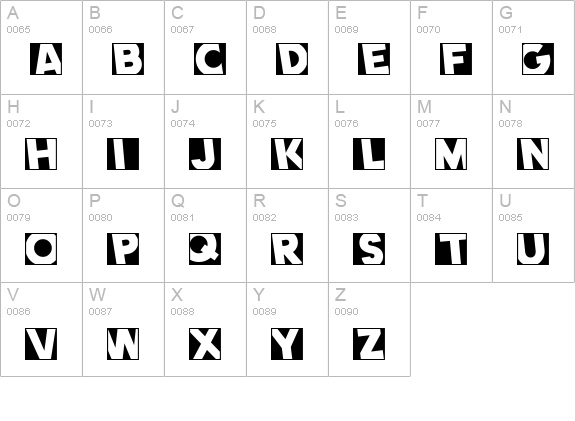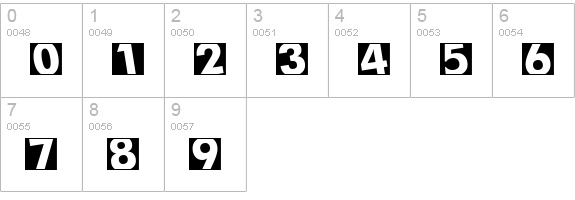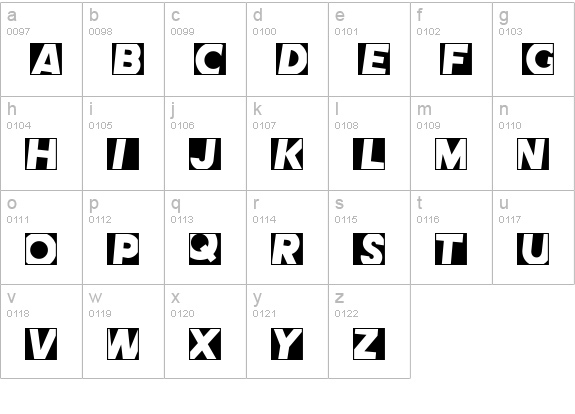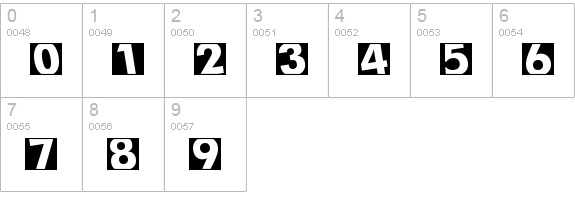
CometNegative Font Details
Introducing CometNegative font, a sleek and modern typeface that exudes sophistication and elegance. With its unique design and sharp angles, CometNegative is sure to make a bold statement in any project. The font features clean lines and a futuristic aesthetic, making it perfect for branding, logos, and headlines. What sets CometNegative apart is its versatility - whether you're designing a sleek website or crafting a contemporary poster, this font will elevate your work to the next level. With a wide range of weights and styles, you have the flexibility to create dynamic and eye-catching designs. Best of all, CometNegative is available for free download at FontsMarket.com. Now you can access this stunning font without breaking the bank. Don't miss out on the opportunity to enhance your creative projects with CometNegative font today.